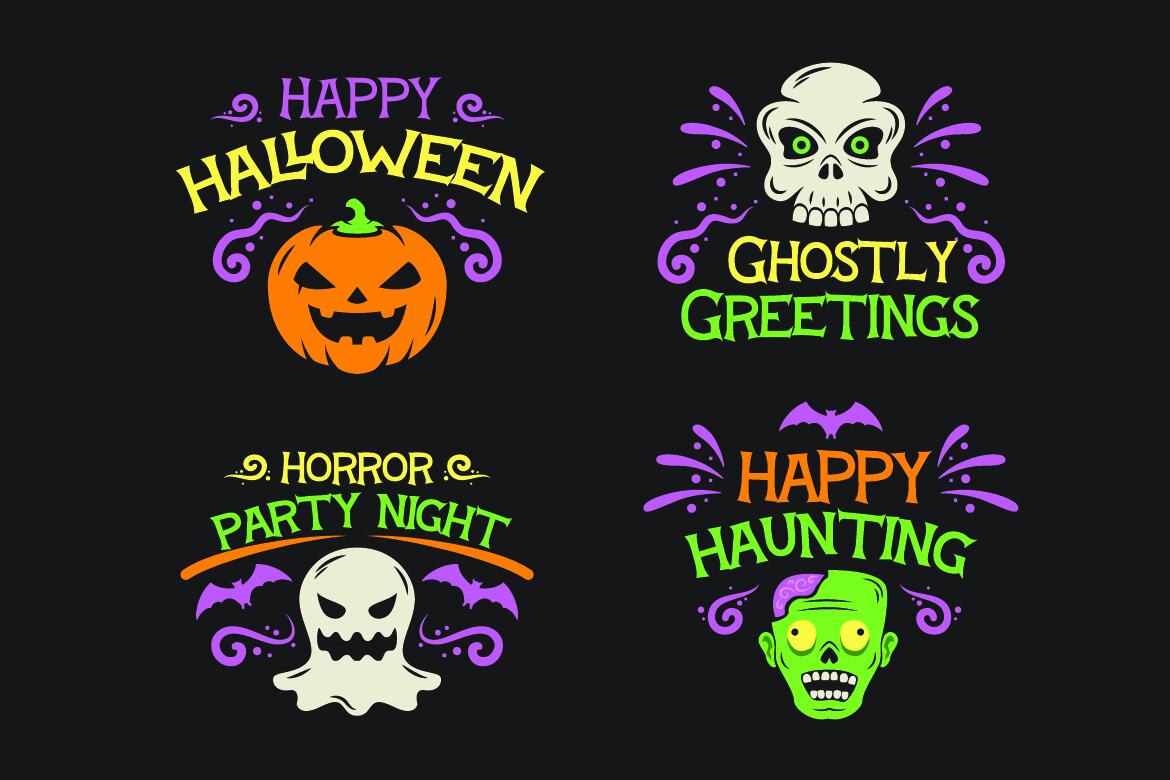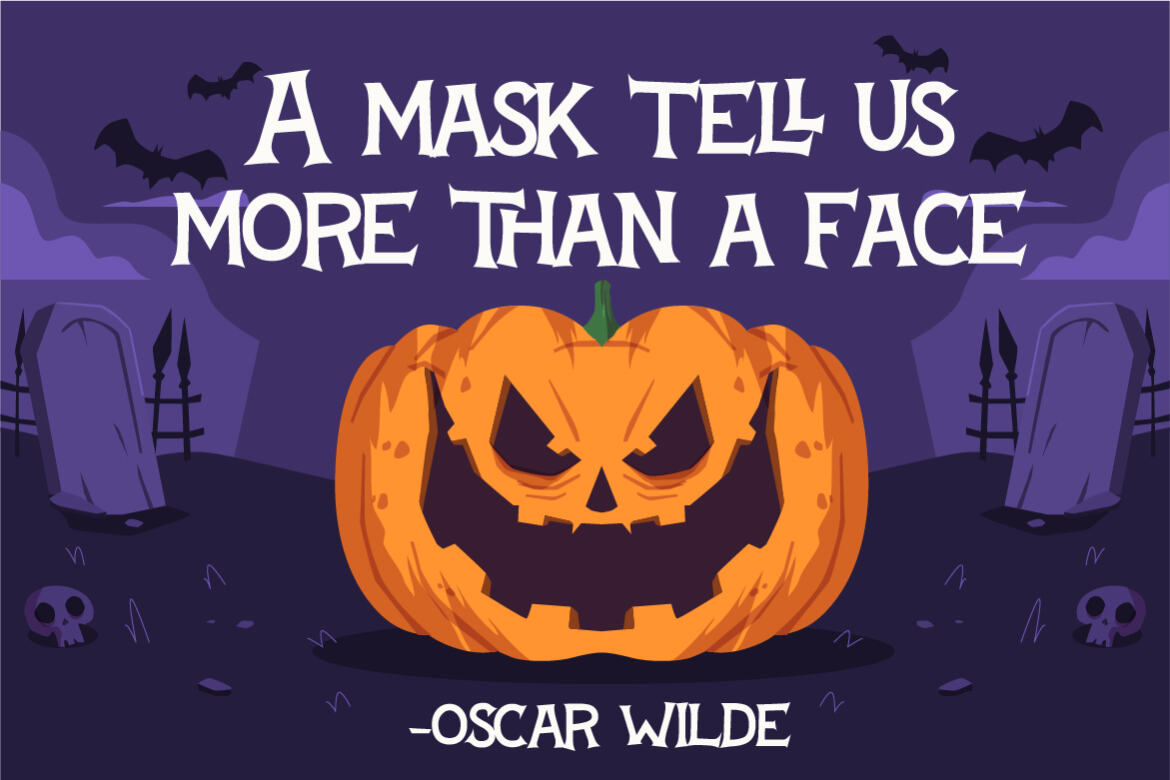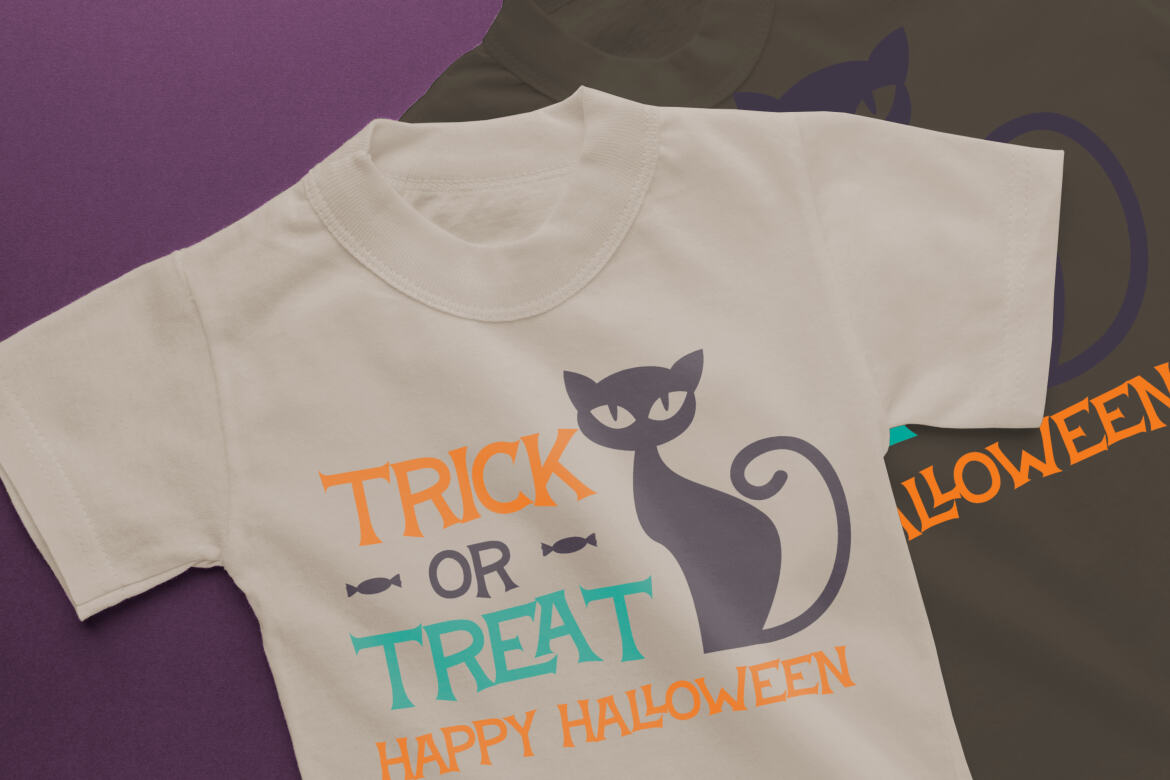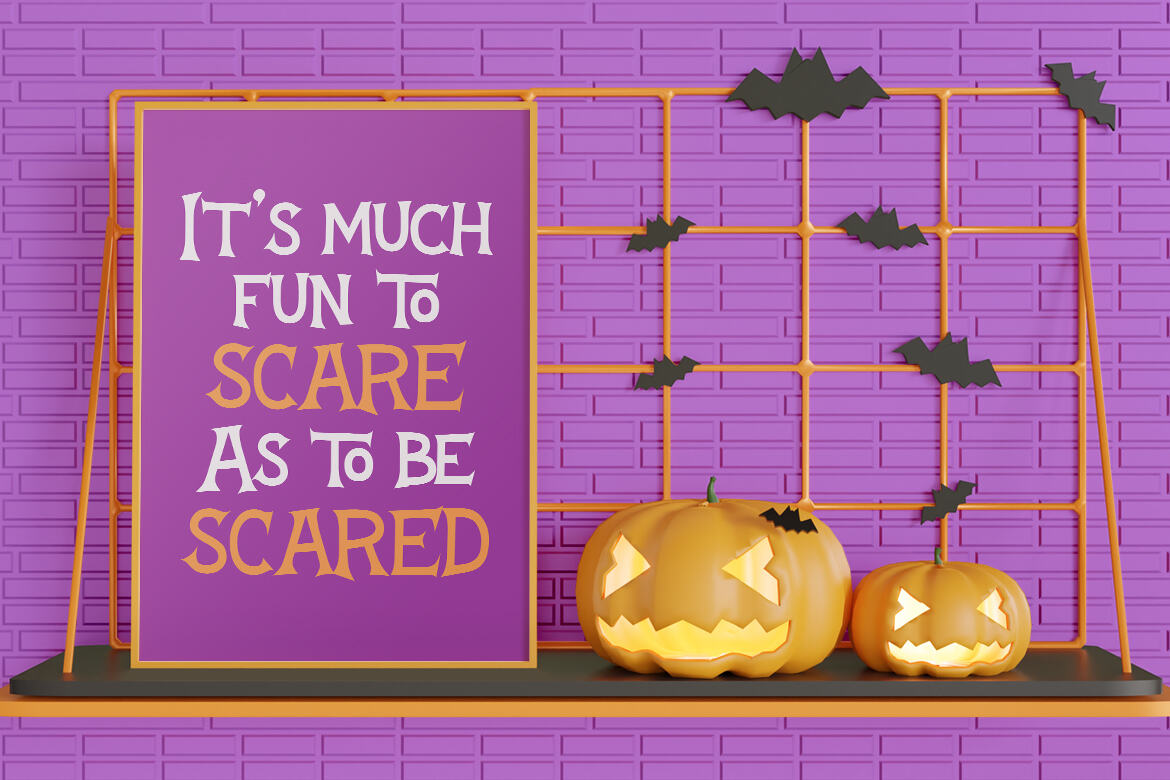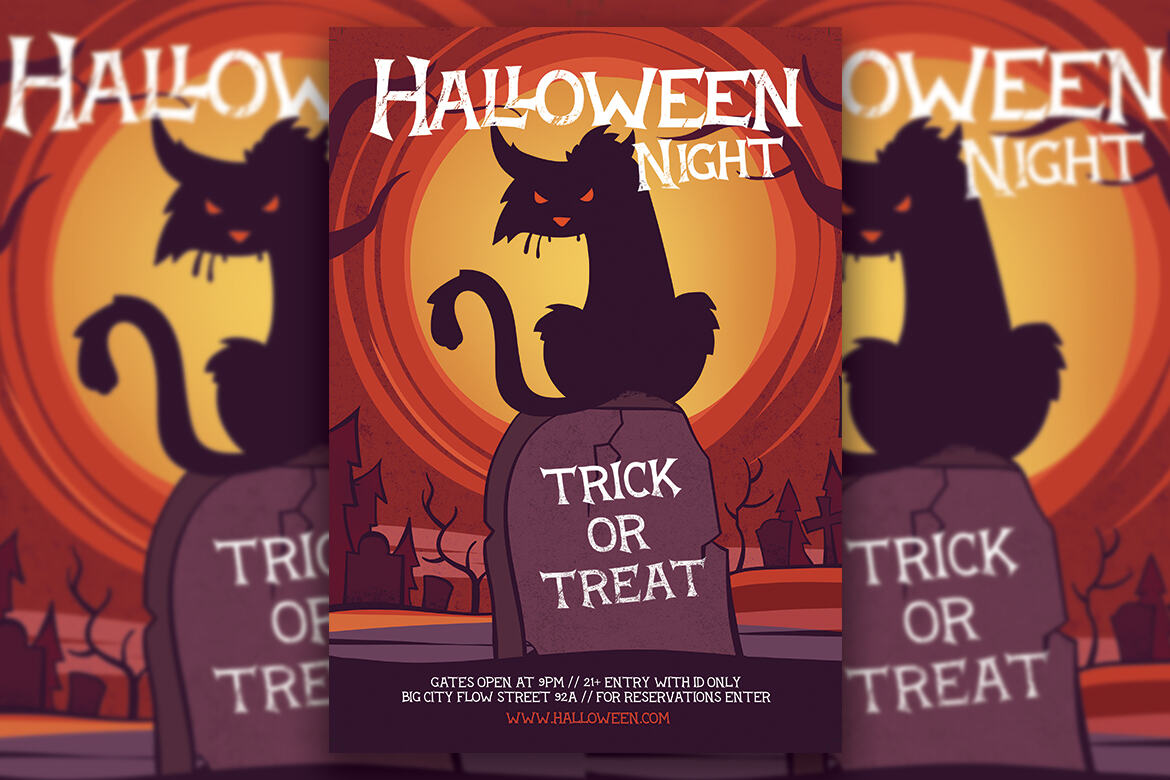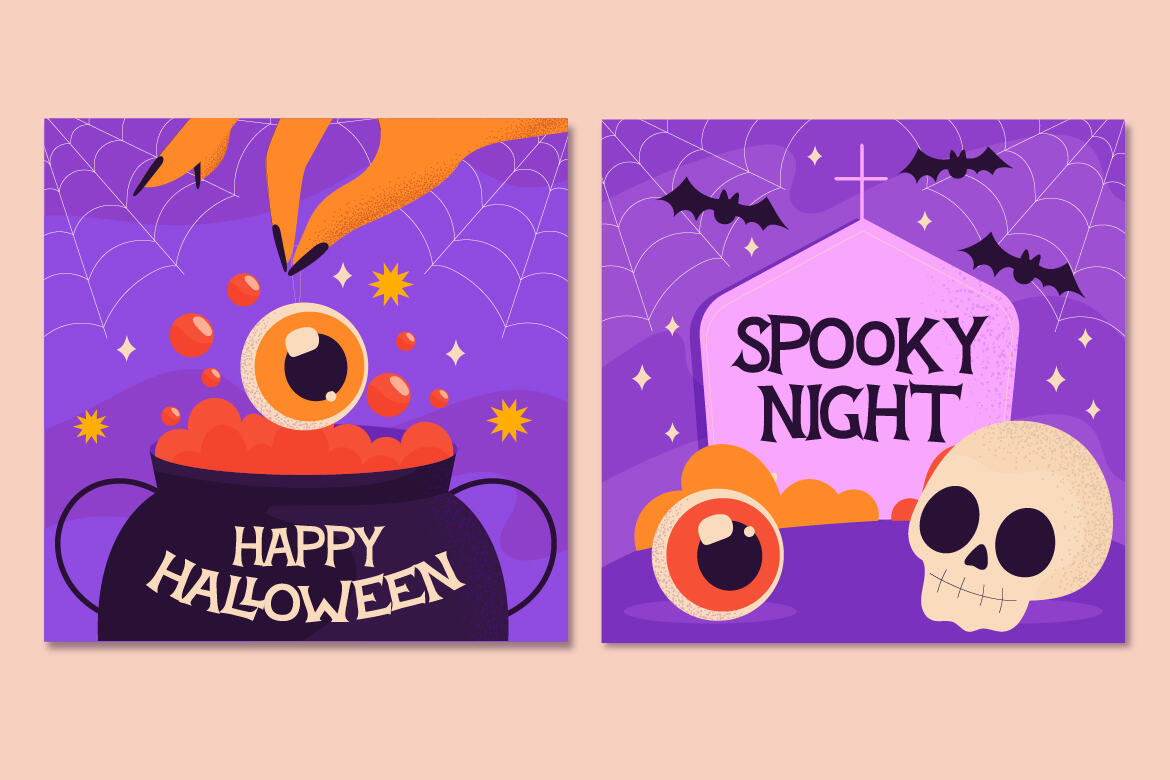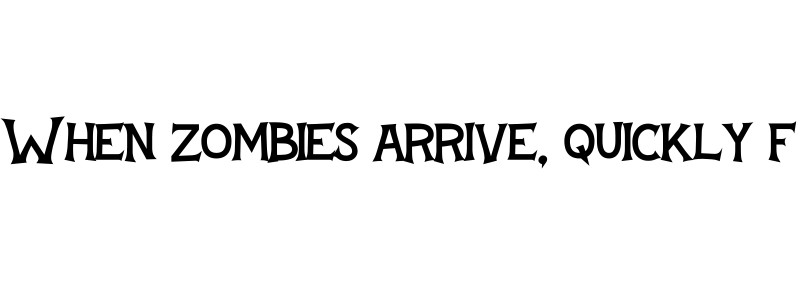
Bloods Tonight- Free Spooky Font
Bloods Tonight
Bloods Tonight celebrates all things scary: It’s the ideal display typeface for any spooky Halloween-themed creative project. Add it to your most creative ideas and notice how it makes them come alive!